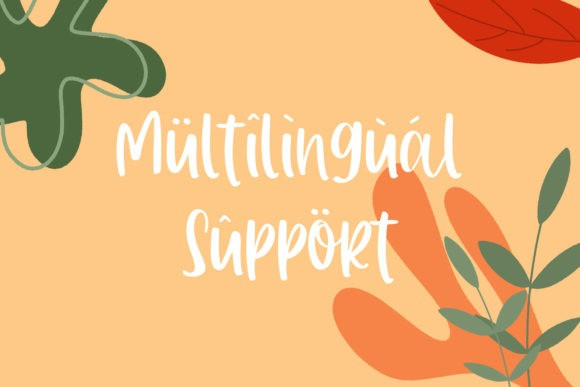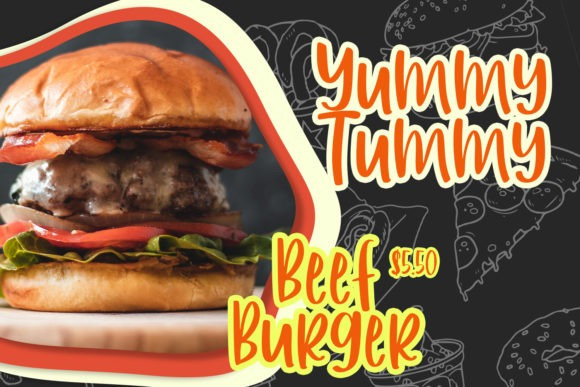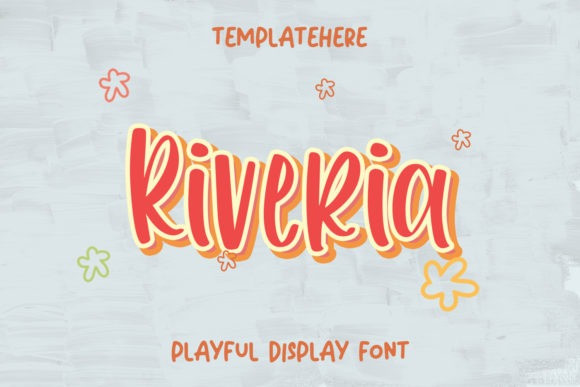
Riveria Display Font
Riveria is a playful display font. This font is a specially crafted for children, boys, kindergarten, birthday, kid, cartoon, and comic purposes.